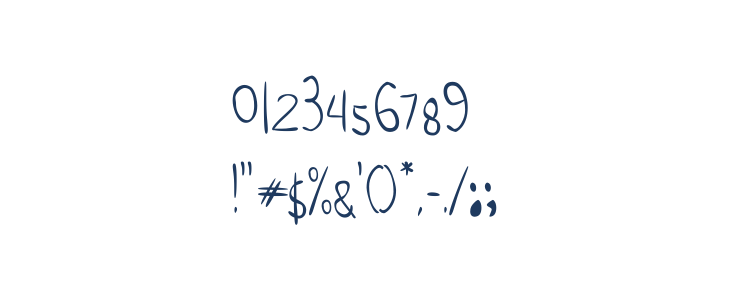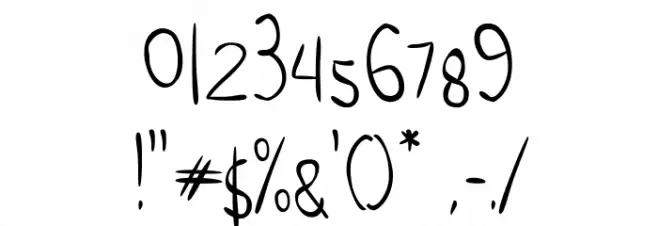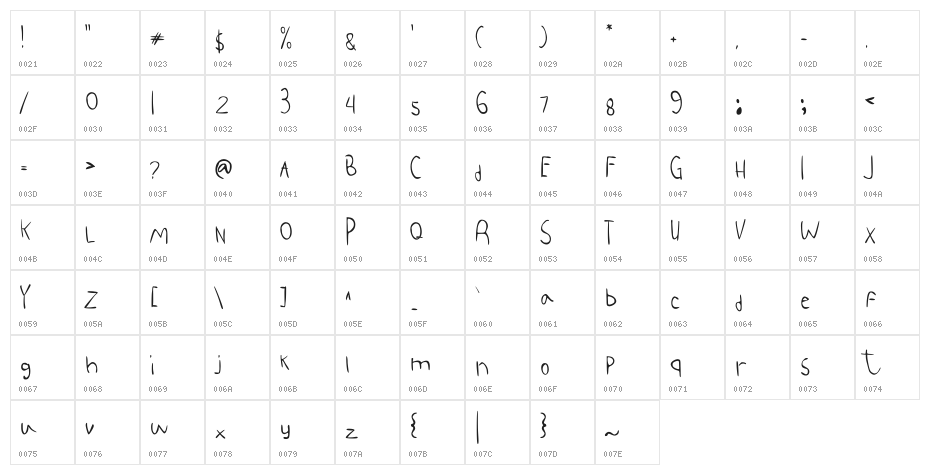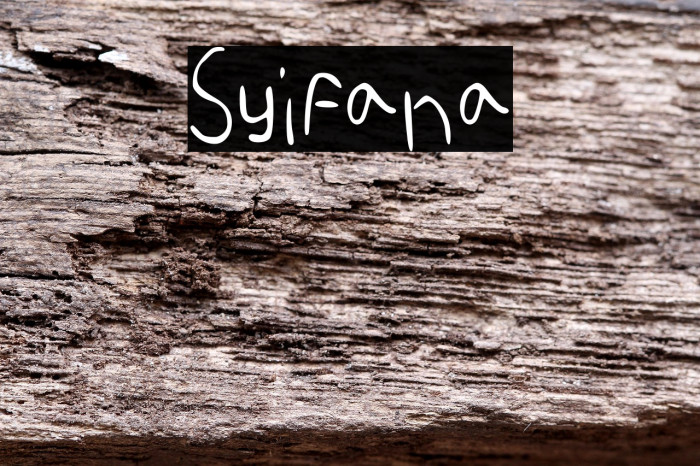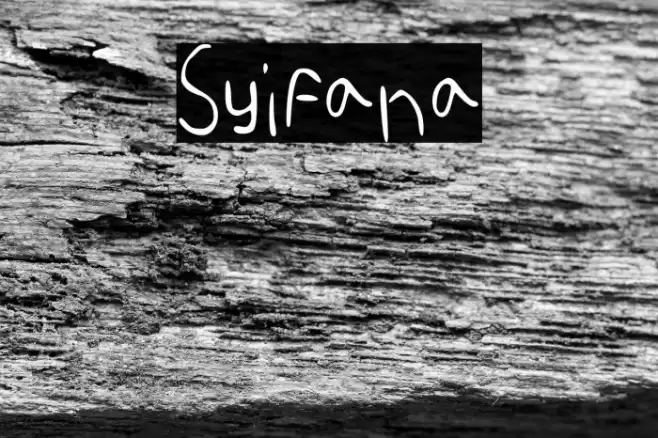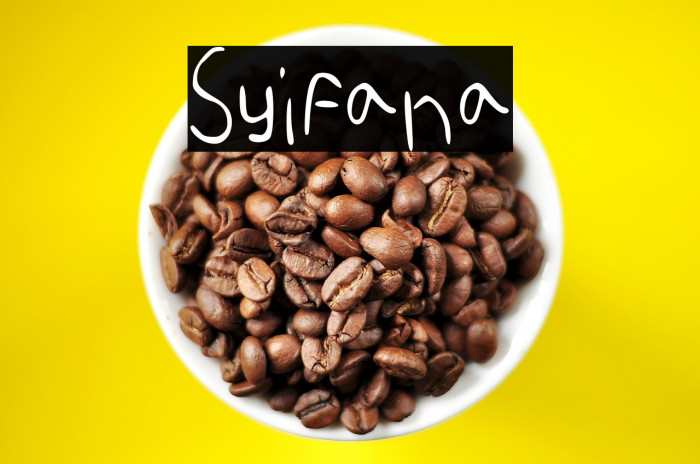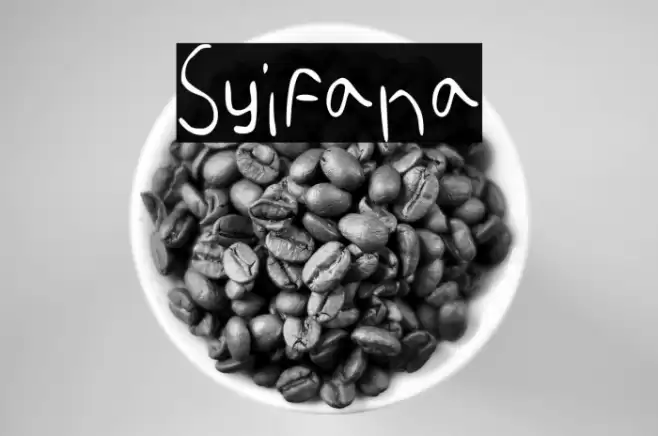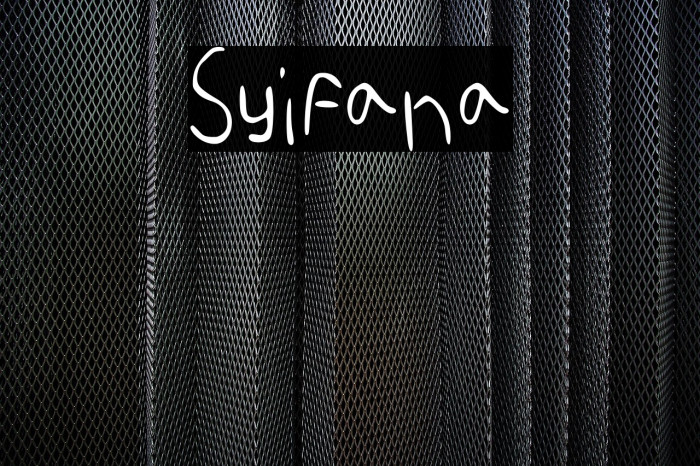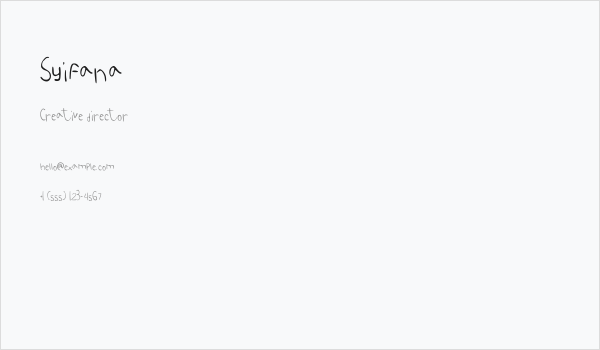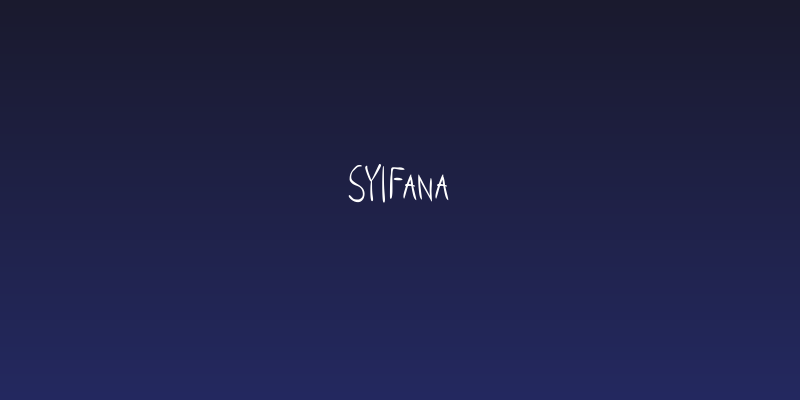
Syifana Font
This font exhibits a playful and casual handwritten style, characterized by its irregular and organic letterforms. The strokes are uneven, giving it a whimsical and informal appearance. The uppercase letters are slightly taller than the lowercase, with a noticeable slant that adds to its dynamic feel. The numbers and special characters maintain the same playful aesthetic, making it suitable for creative and informal projects. The overall design is approachable and friendly, perfect for conveying a sense of fun and creativity.
Overall StyleCasual, Playful
Use CaseHeadlines, Informal text, Creative projects
Proposed ProjectsIdeal for children's books, greeting cards, casual invitations, and creative branding.